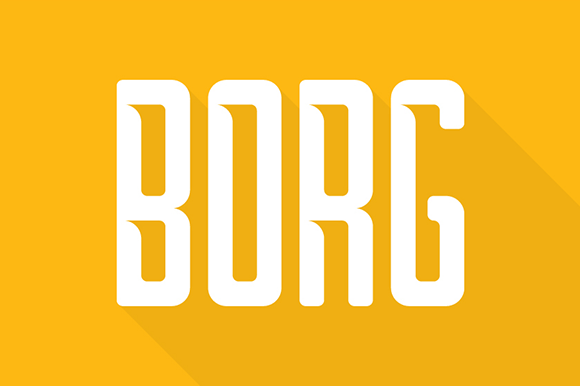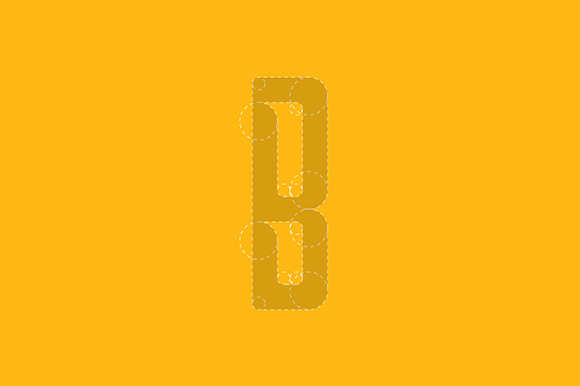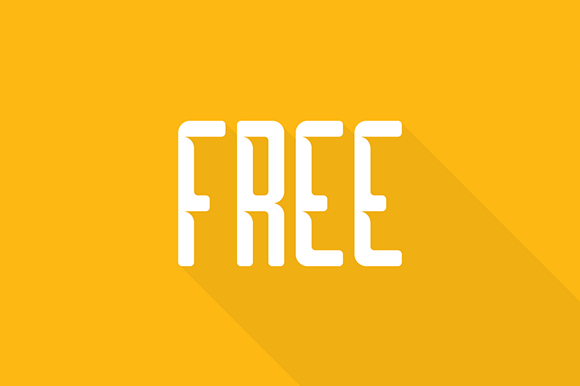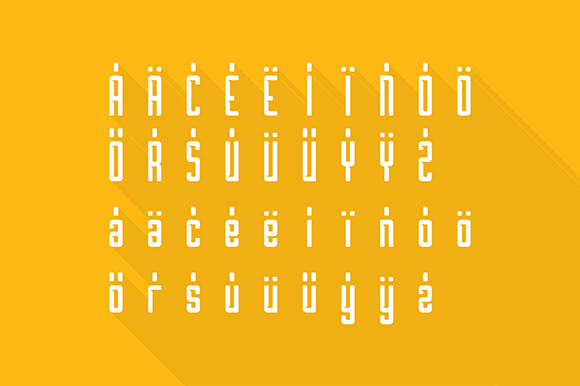
Borg
About Borg Font
Borg is the ultimate free display font. “Borg is a geometric typeface with a curved incision. My inspiration was Swedish furniture. The PAOK FC is a greek football team and they used my font on their new jersey in 2015. In 2016 Levante UD,SSC Napoli and Paris Saint-Germain used too in their new jersey.”